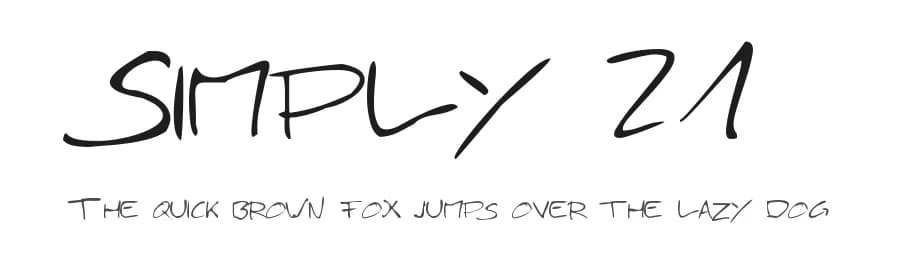
About Simply 21 Font
Simply 21 is a script & handwritten font designed by Thomas Gerstendörfer. It includes 118 glyphs, a regular weight, TTF (TrueType) format, and 109 languages. Simply 21 is free to download; check the license details on this page before commercial use. Script & handwritten fonts like Simply 21 work best for wedding invitations, greeting cards, signatures, and elegant branding.
Simply 21 Font is a script font that shines as a display or heading face. Pair it with a clean sans-serif or serif font for body text — the contrast creates a clear hierarchy while the two styles stay balanced and easy to read.
Simply 21 Font
Simply 21 Font is a script handwritten typeface by Thomas Gerstendörfer, ideal for logos, invitations, branding, and creative projects.